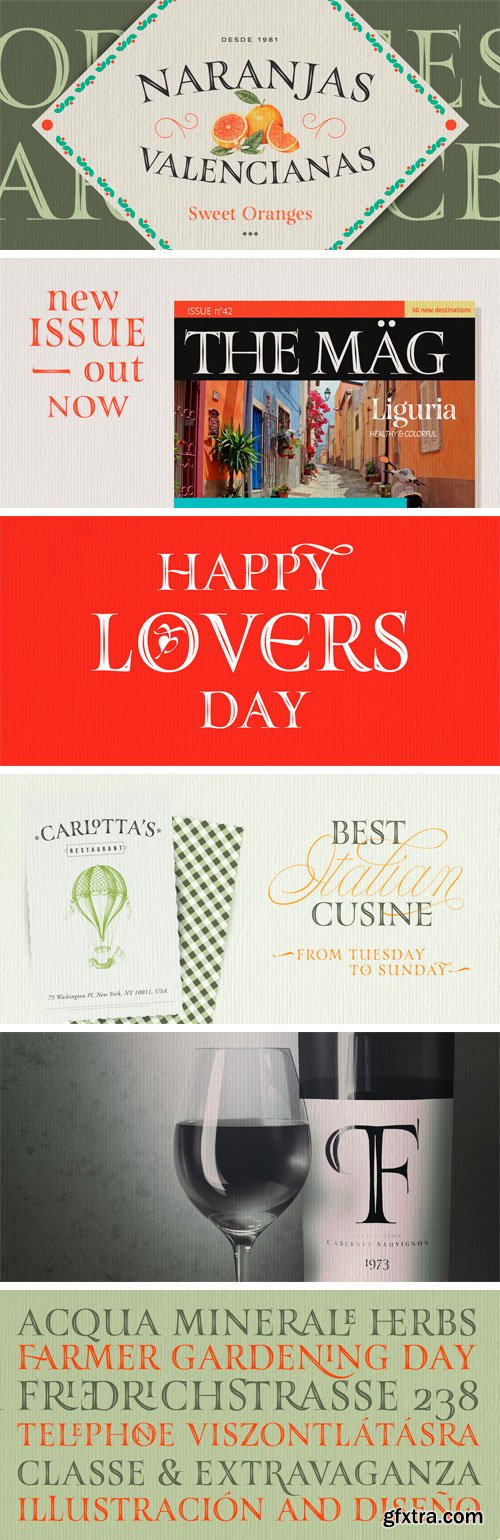
Turquoise Inline is a new version of our bestseller Turquoise. This version of roman capitals is more focused on display use, with the details of an inline roman type. This font can be used, for ads, labels, wine labels, logo and all kind of display uses. Open Type features needs to be activated for all the ligatures and alternates. Enjoy it!